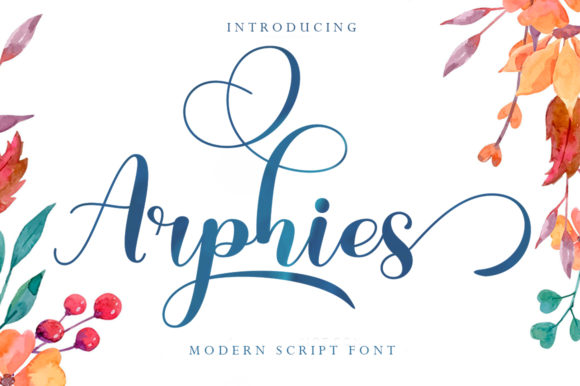
Discover the Elegance of Arphies Font: A Perfect Choice for Designers and Crafters
Are you a designer or crafter looking for a font that exudes charm and elegance? Look no further than Arphies Font. This beautiful handwritten font is perfect for adding a touch of sophistication to your designs, whether you’re working on wedding invitations, thank you cards, quotes, greeting cards, logos, business cards, or any other project that requires a personal and elegant feel.
The Characteristics of Arphies Font
Arphies Font is a stunning example of modern calligraphy, with a range of features that make it stand out from other fonts. Some of its key characteristics include:
- Varying Baseline: Arphies Font features a varying baseline, which gives it a natural, handwritten feel that’s perfect for creating a sense of movement and fluidity in your designs.
- Smooth Lines: The font’s smooth lines and curves create a sense of elegance and sophistication, making it perfect for designs that require a high level of refinement.
- Gorgeous Glyphs: Arphies Font comes with a range of gorgeous glyphs, including stunning alternates that allow you to add variety and interest to your designs.
Uses for Arphies Font
Arphies Font is a versatile font that can be used for a wide range of design projects, including:
- Wedding Invitations: The font’s elegant, cursive feel makes it perfect for wedding invitations, save-the-date cards, and other wedding-related designs.
- Thank You Cards: Arphies Font is also great for creating thank you cards, greeting cards, and other personal correspondence.
- Quotes and Posters: The font’s smooth lines and elegant feel make it perfect for creating inspirational quotes, posters, and other designs that require a touch of sophistication.
- Logos and Branding: Arphies Font can also be used to create beautiful logos and branding materials, such as business cards, letterheads, and brochures.
Why Designers and Crafters Love Arphies Font
Arphies Font has become a favorite among designers and crafters due to its unique combination of elegance, versatility, and ease of use. Here are just a few reasons why:
- Elegant and Refined: The font’s elegant, cursive feel adds a touch of sophistication to any design, making it perfect for projects that require a high level of refinement.
- Highly Versatile: The font can be used for a wide range of design projects, from wedding invitations to logos and branding materials.
| Font Name | Arphies Font |
| Author | Skinny type |
Arphies Font is a beautiful, elegant font that’s perfect for designers and crafters looking to add a touch of sophistication to their designs. With its varying baseline, smooth lines, gorgeous glyphs, and stunning alternates, this font is sure to become a favorite in your design arsenal. Whether you’re working on wedding invitations, logos, or any other design project, Arphies Font is a great choice.